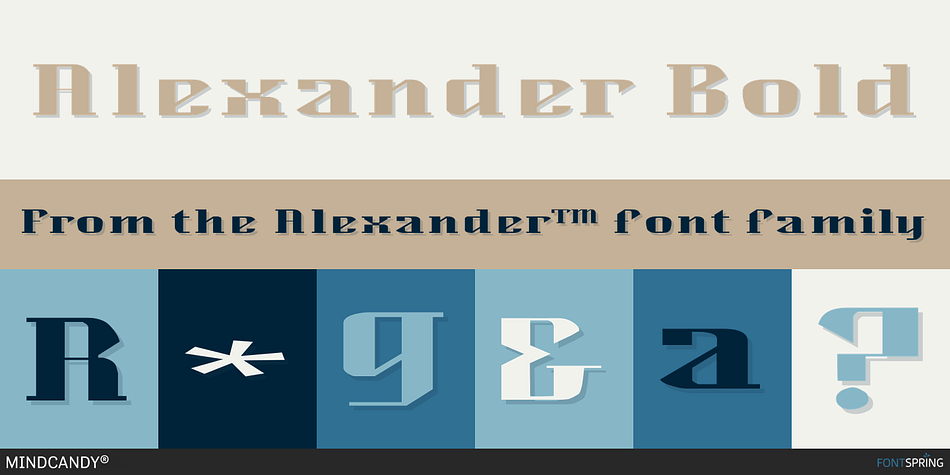
Alexander Bold
Designed by Jeff Gillen, Alexander™ is a display slab font family. This typeface has six styles and was published by MINDCANDY.
The Alexander™ Font Family is a “contemporary” style designed font. Very unique design with both “thick and thin” characteristics.  Having 6 fonts within the family makes it a very versatile font to use on any type of project - print design, website design, app design and digital video design. Alexander™ is a font family that contains 6 fonts: Alexander Light, Alexander Light Oblique, Alexander Medium, Alexander Medium Oblique, Alexander Bold, and Alexander Bold Oblique. The perfect font family to add to your existing font collection. © 1995. All Rights Reserved. Designed by Adam Roe. Distributed with permission by Mindcandy® on Fontspring.com.